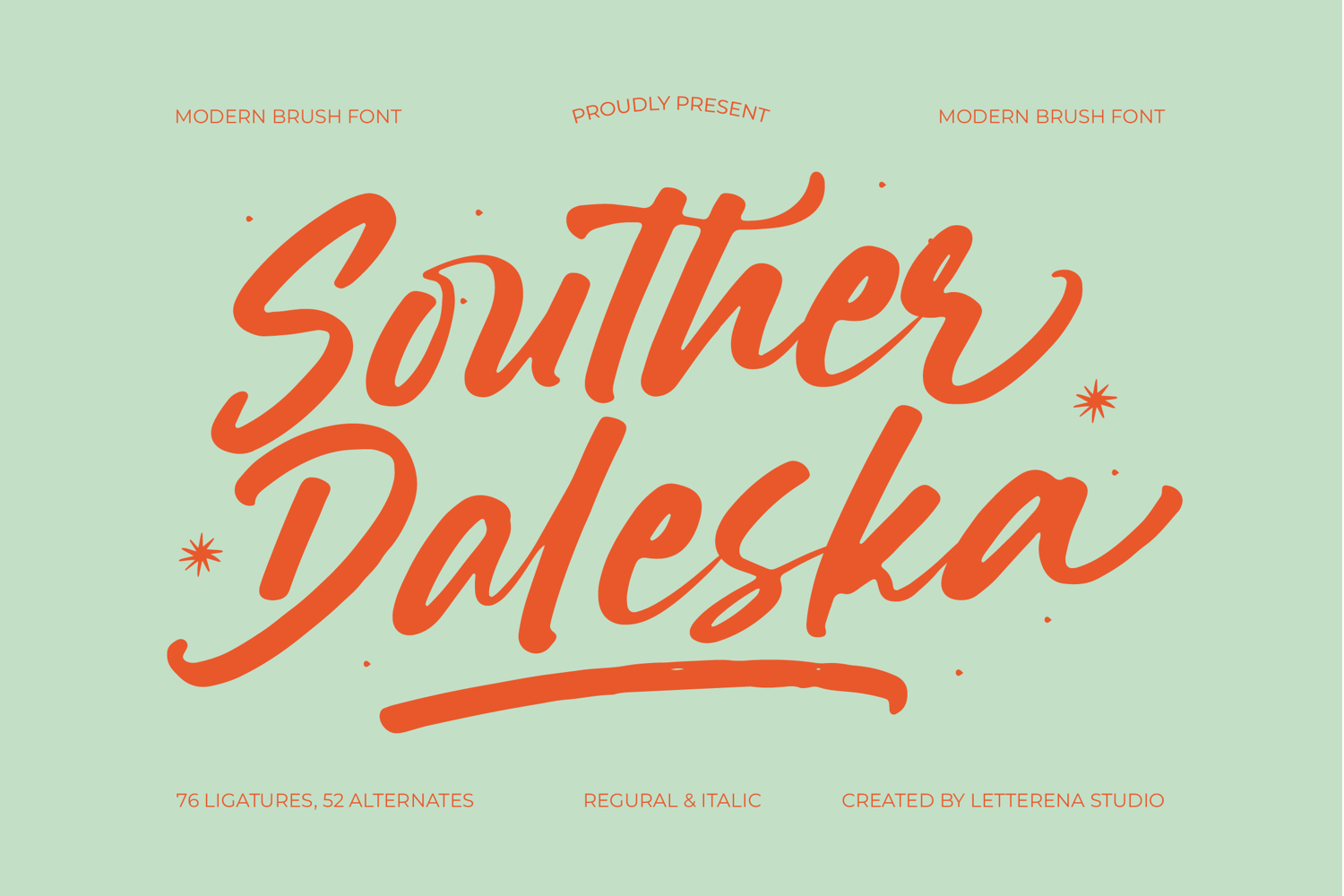
Souther Daleska - Modern Brush Font
Souther Daleska Italic
Souther Daleska
Souther Daleska - Modern Brush Font , from Letterena, is a Luxury Script font, suitable for any projects such as: logos, branding projects, homeware designs, product packaging, mugs, quotes, posters, shopping bags, t-shirts, book covers, name card, invitation cards, greeting cards, label, photography, watermark, special events, and all your other luxury and beautiful projects that need a Luxury Script taste.
76 Ligature 52 Alternate & Swashes